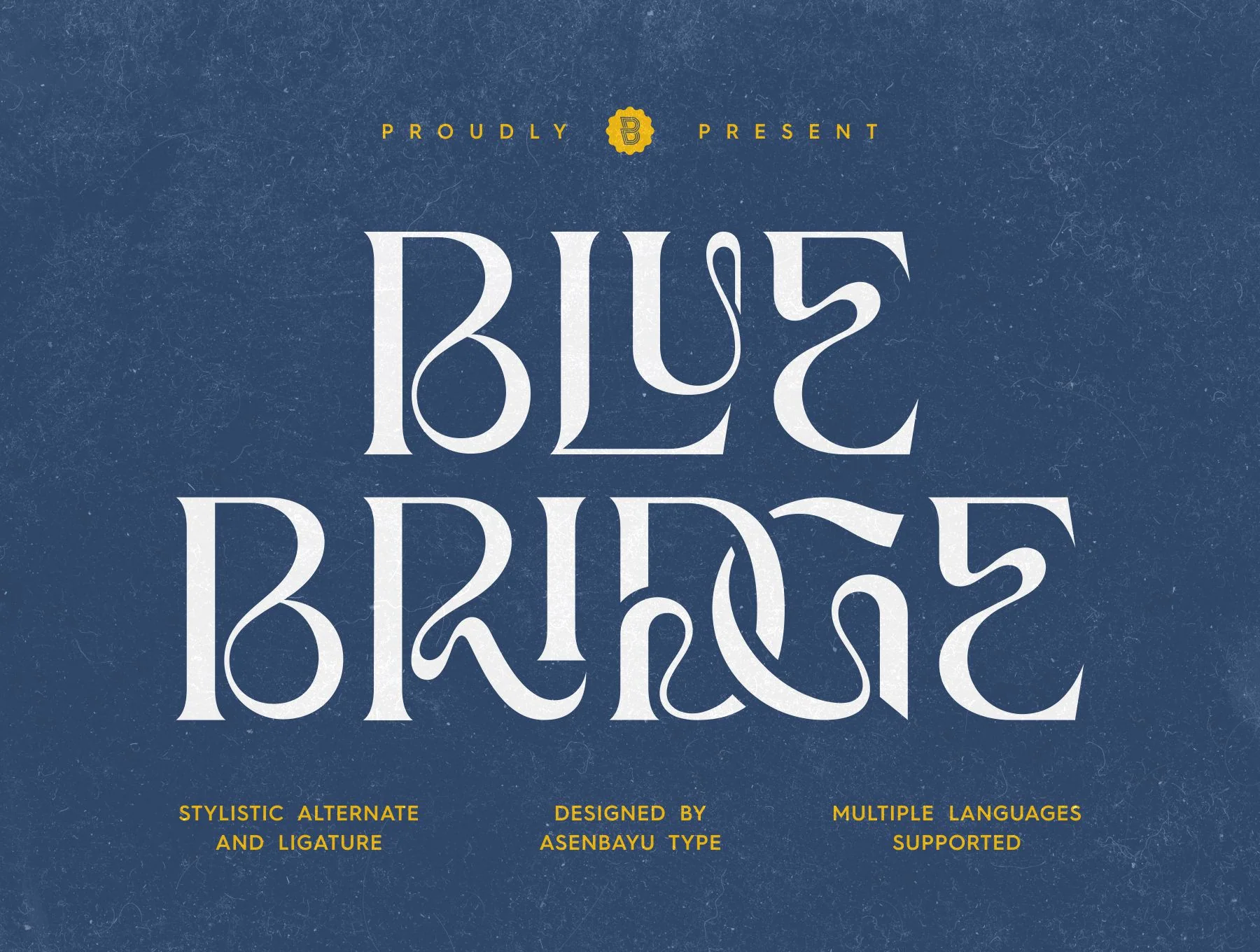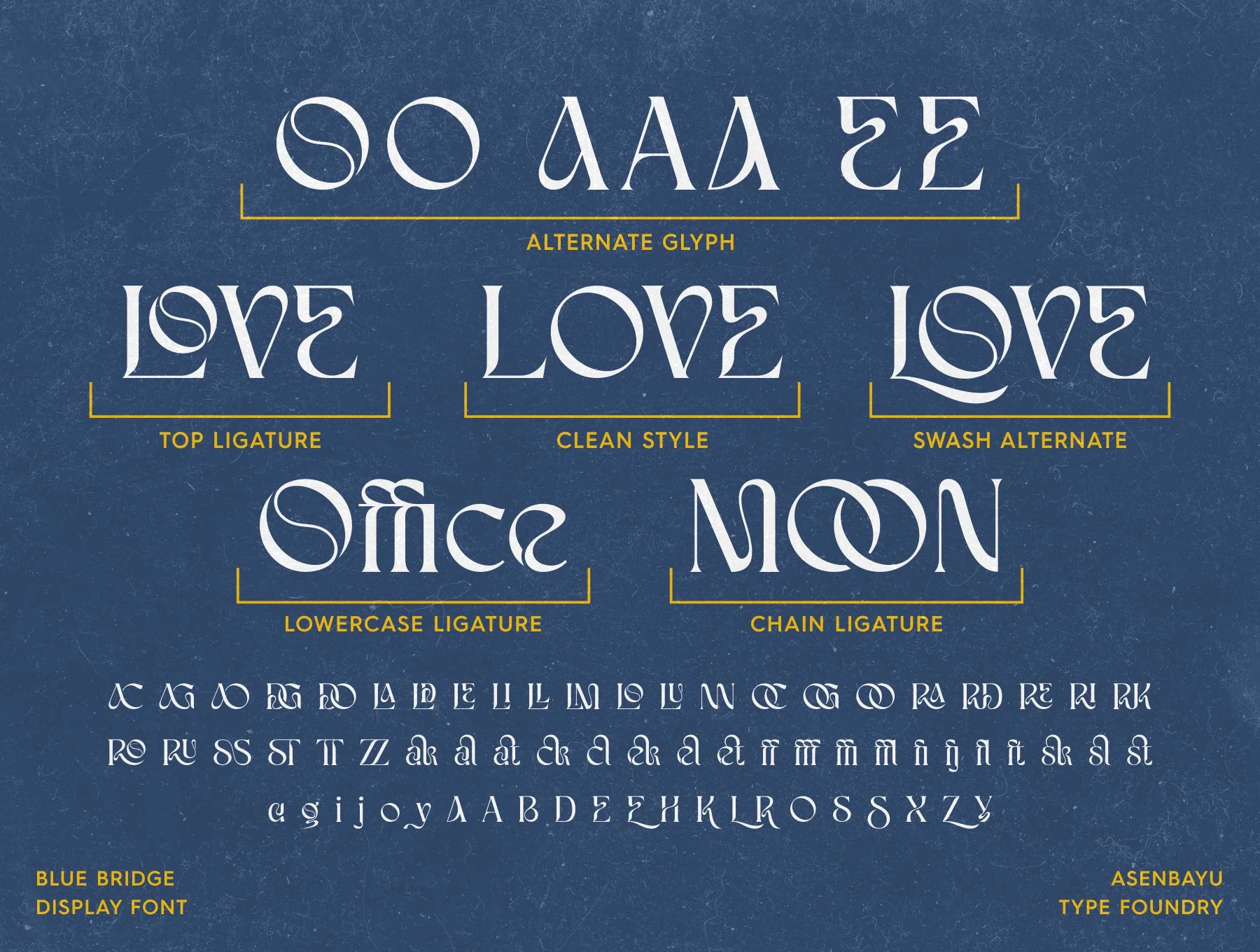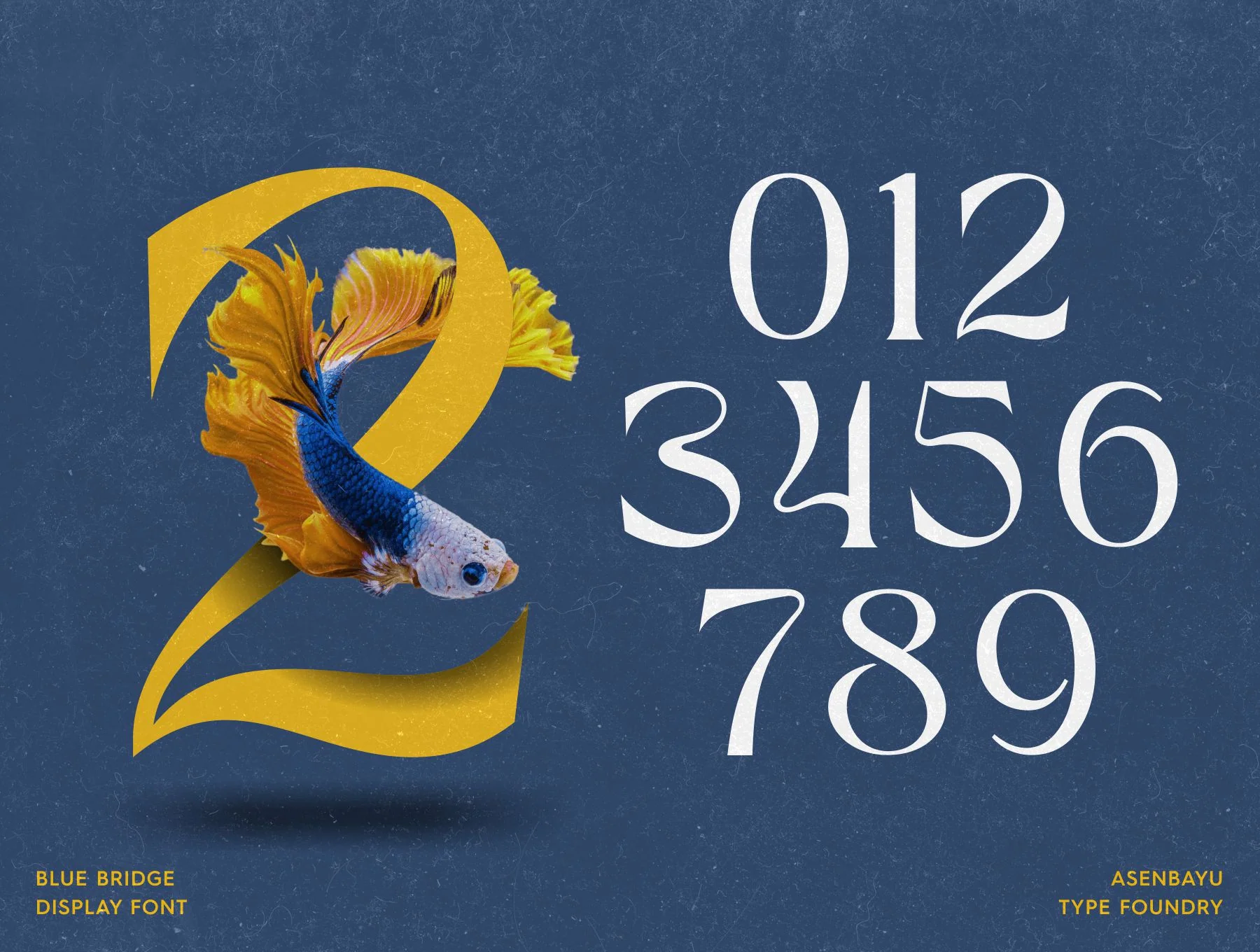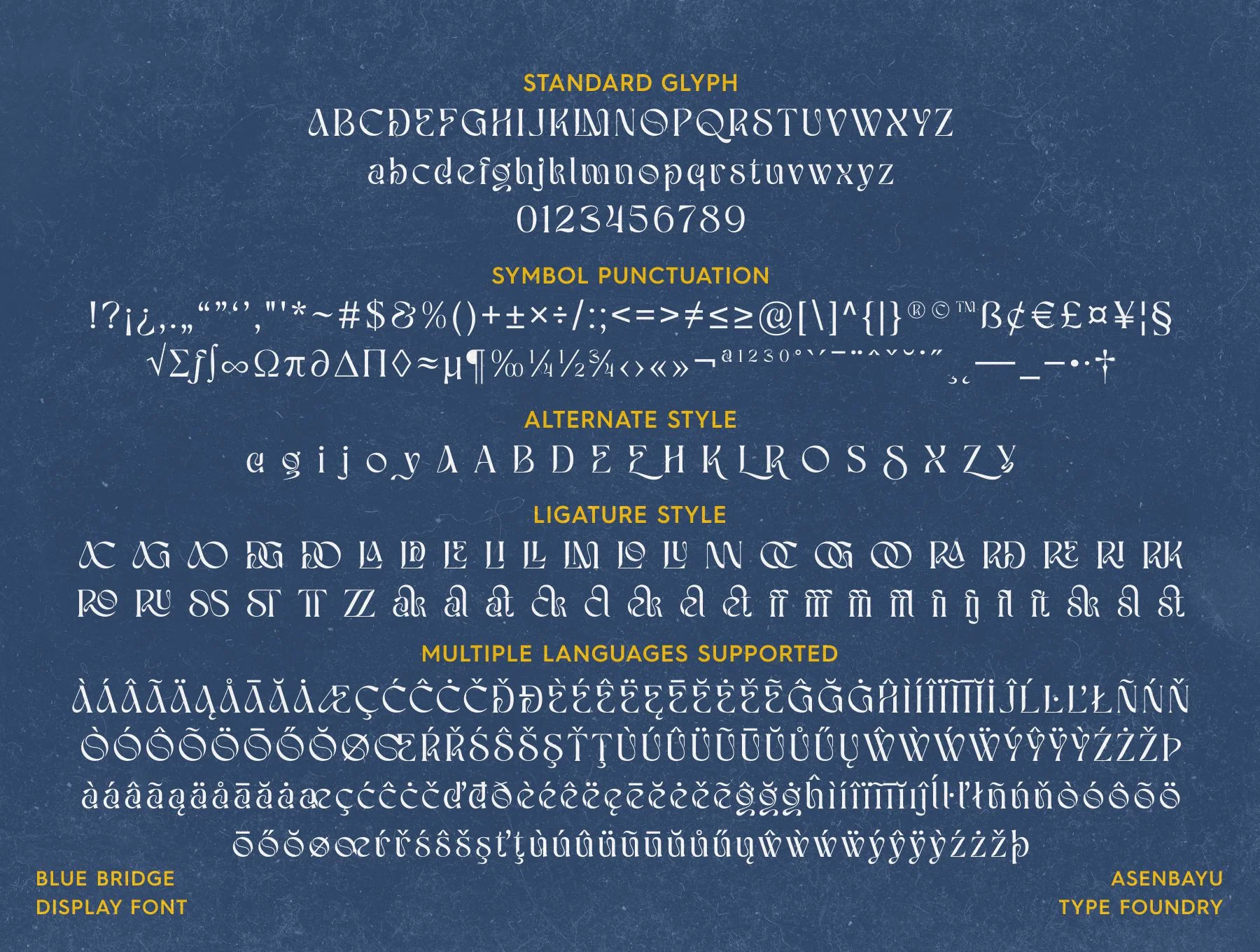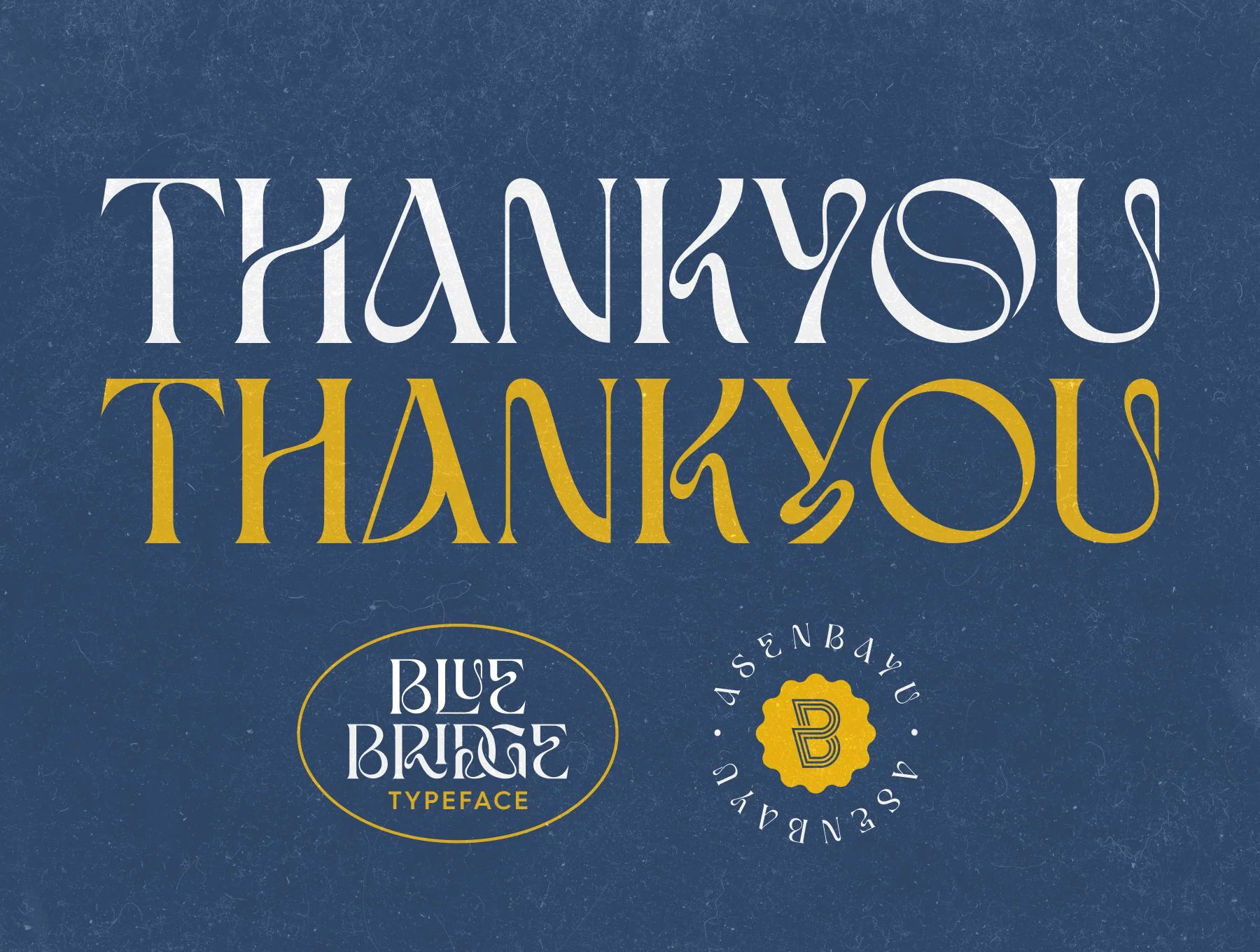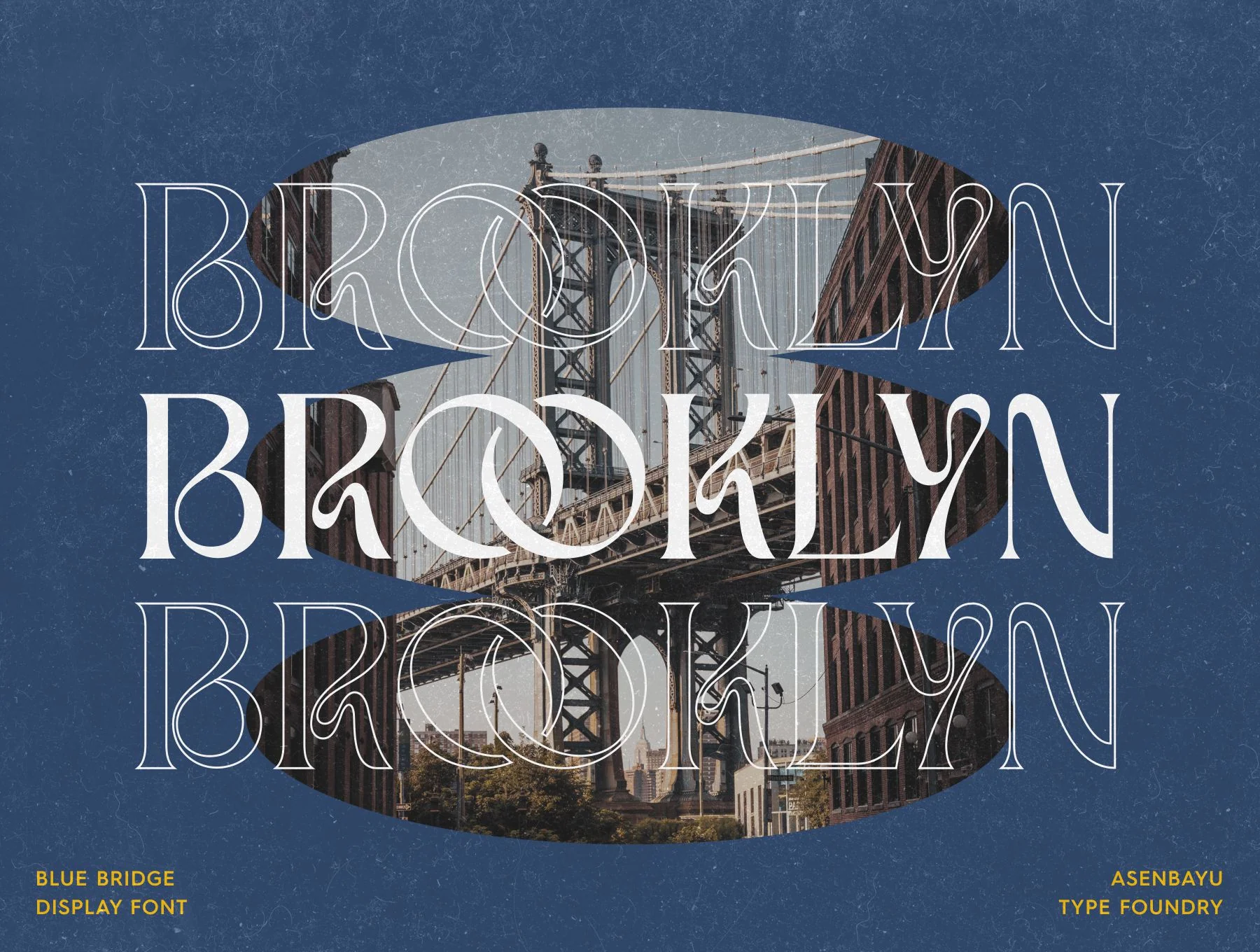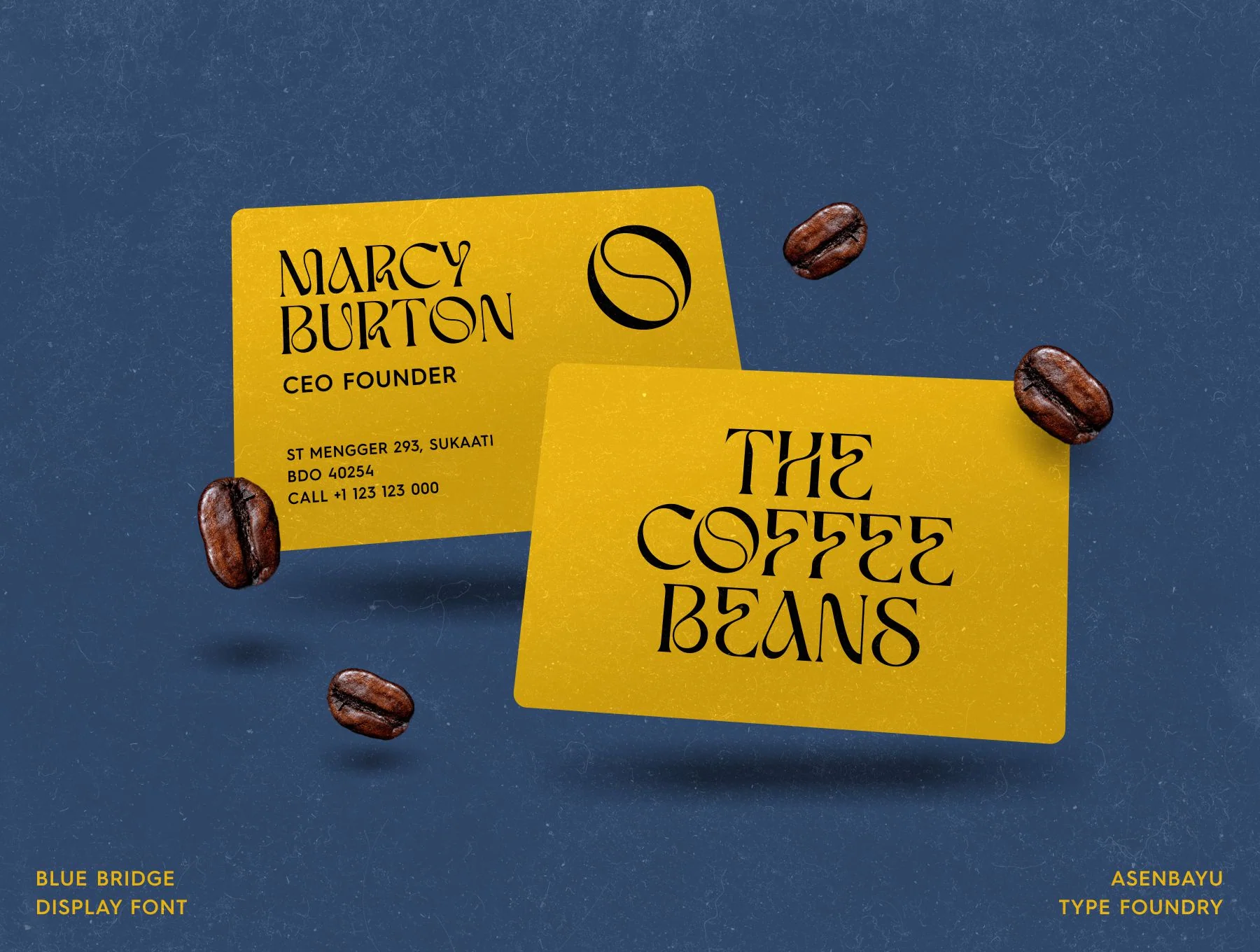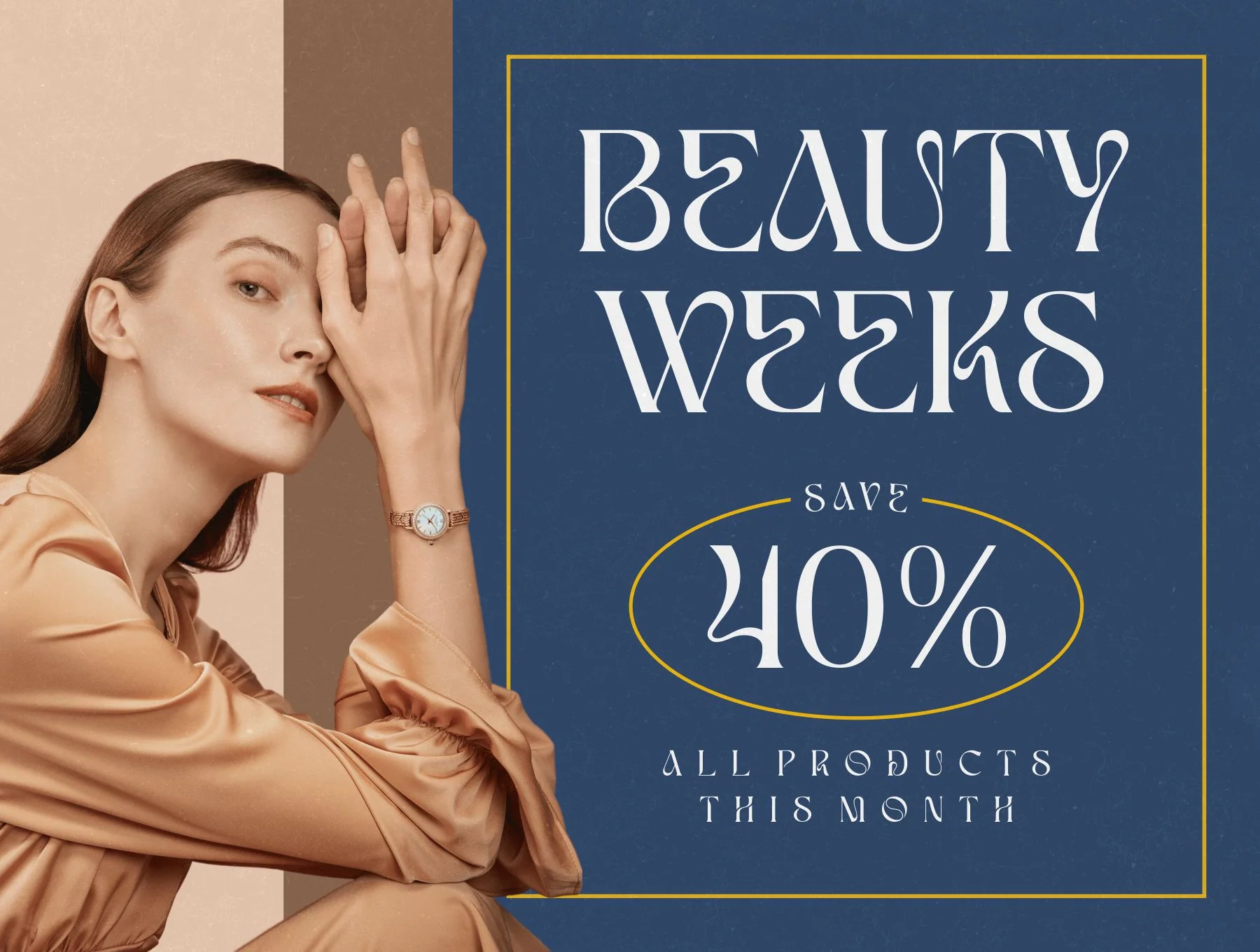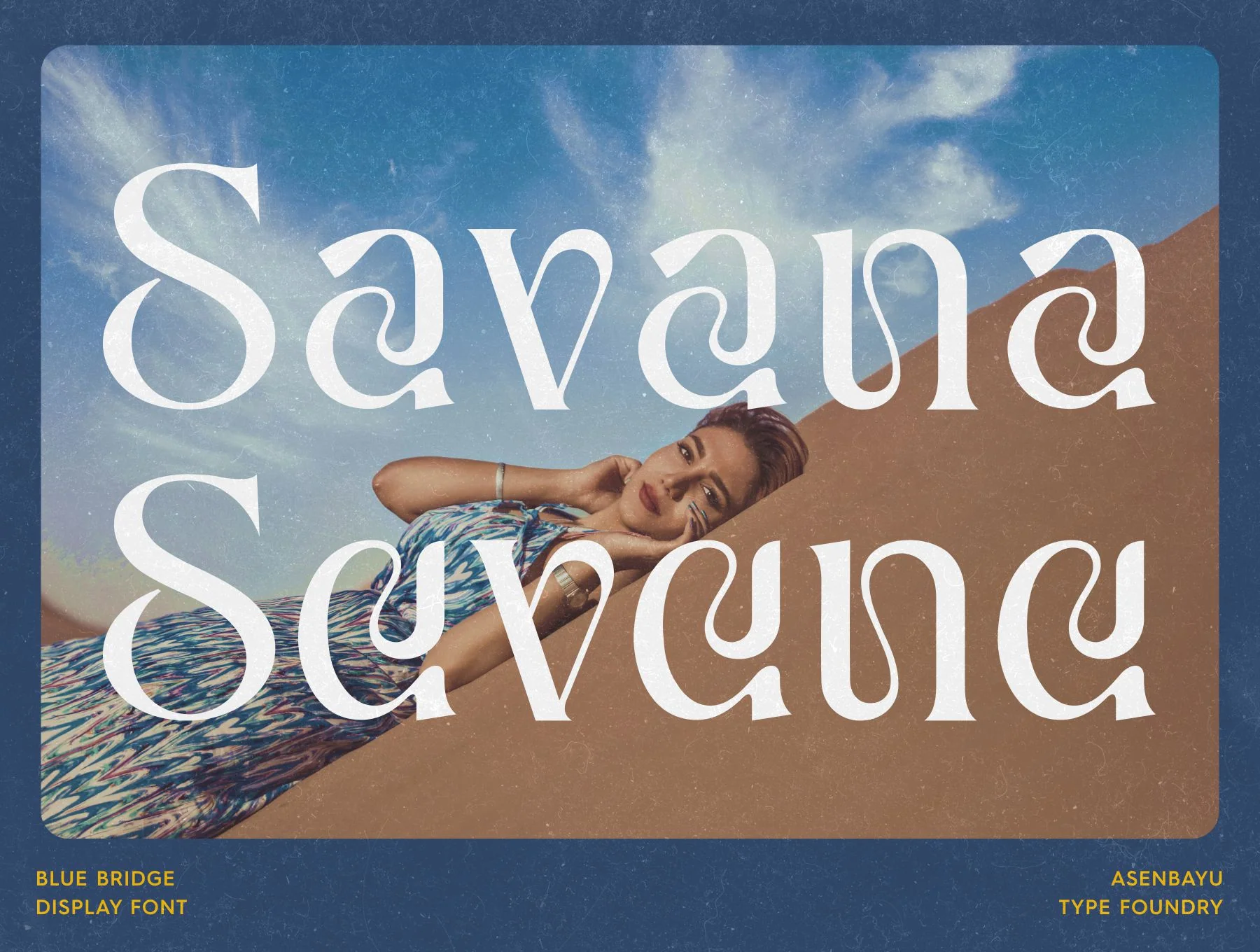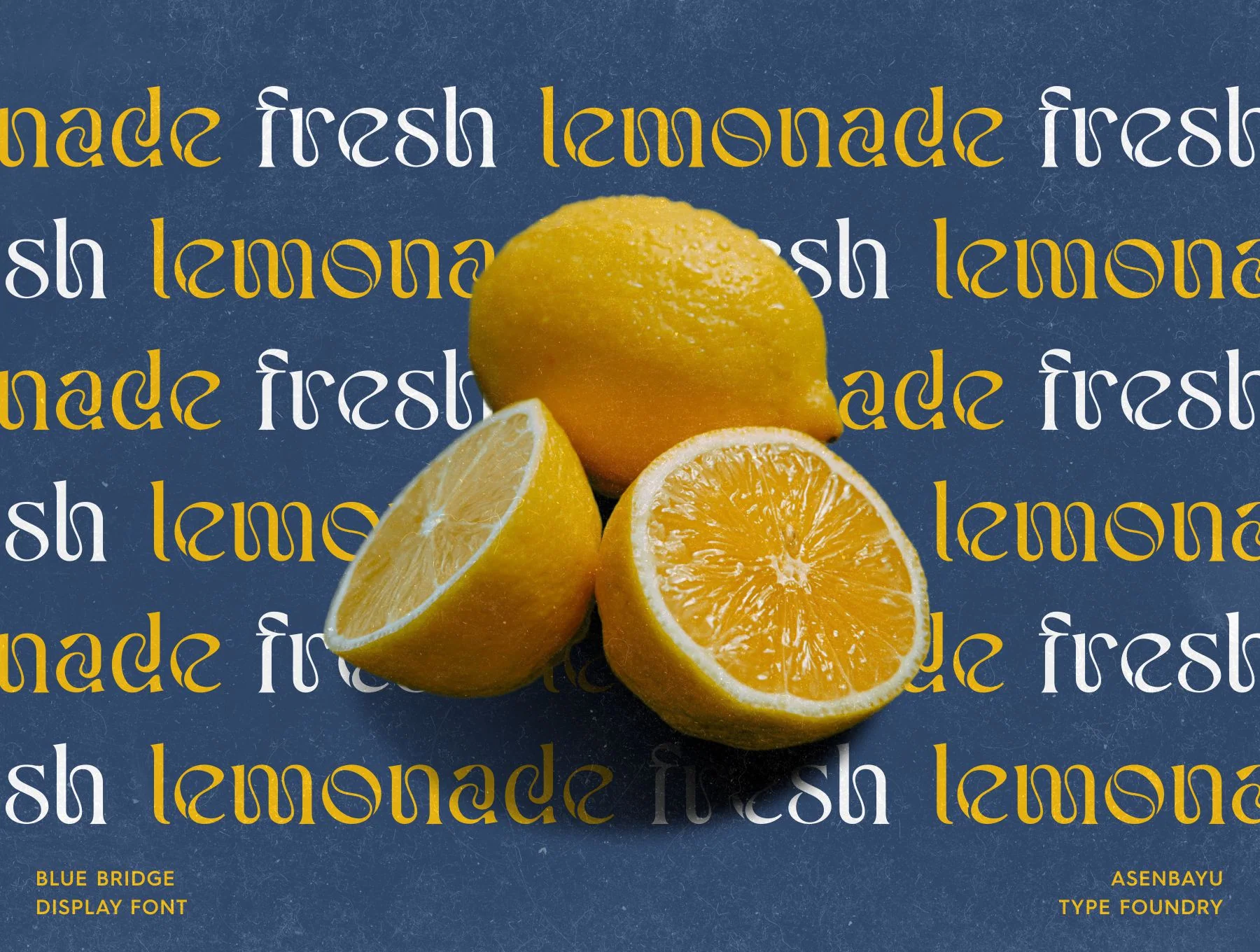
Blue Bridge Font
Ornamental Pointed Serif Display Typeface
Regular character set
Capital and small letters
Alternate styles with ligatures
Blue Bridge is an artistic sharp-serif display typeface with ornate, flowing forms. Its pointed terminals and graceful curves create an elegant, eye-catching style for modern or retro projects. Ideal for packaging labels, distinctive logos, posters, fashion work, and more. Includes OTF, kerning, standard glyphs, alternates, ligatures, symbols, punctuation, and multilingual support.